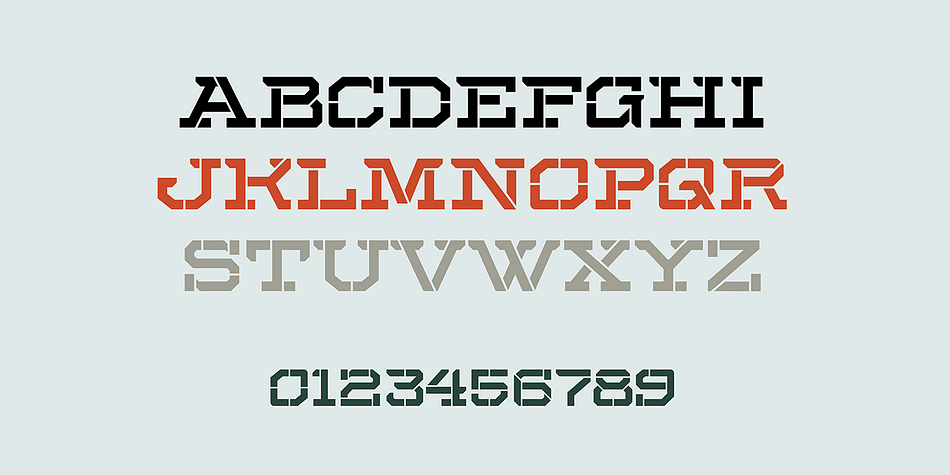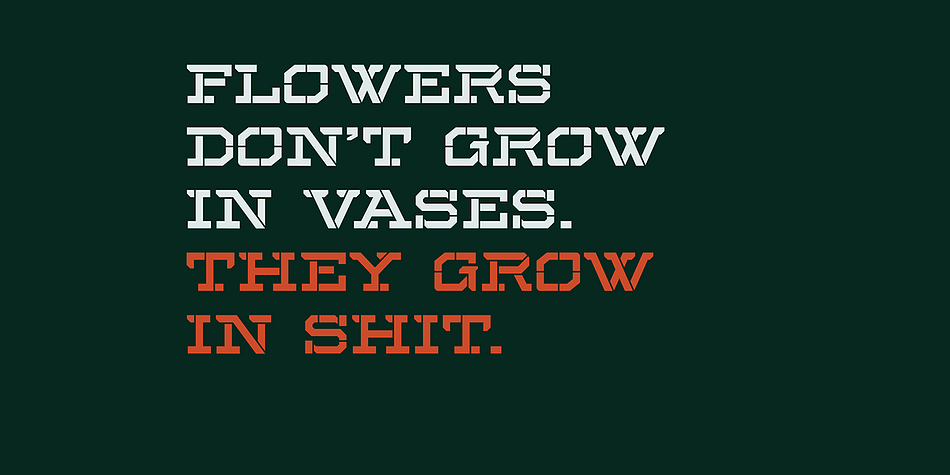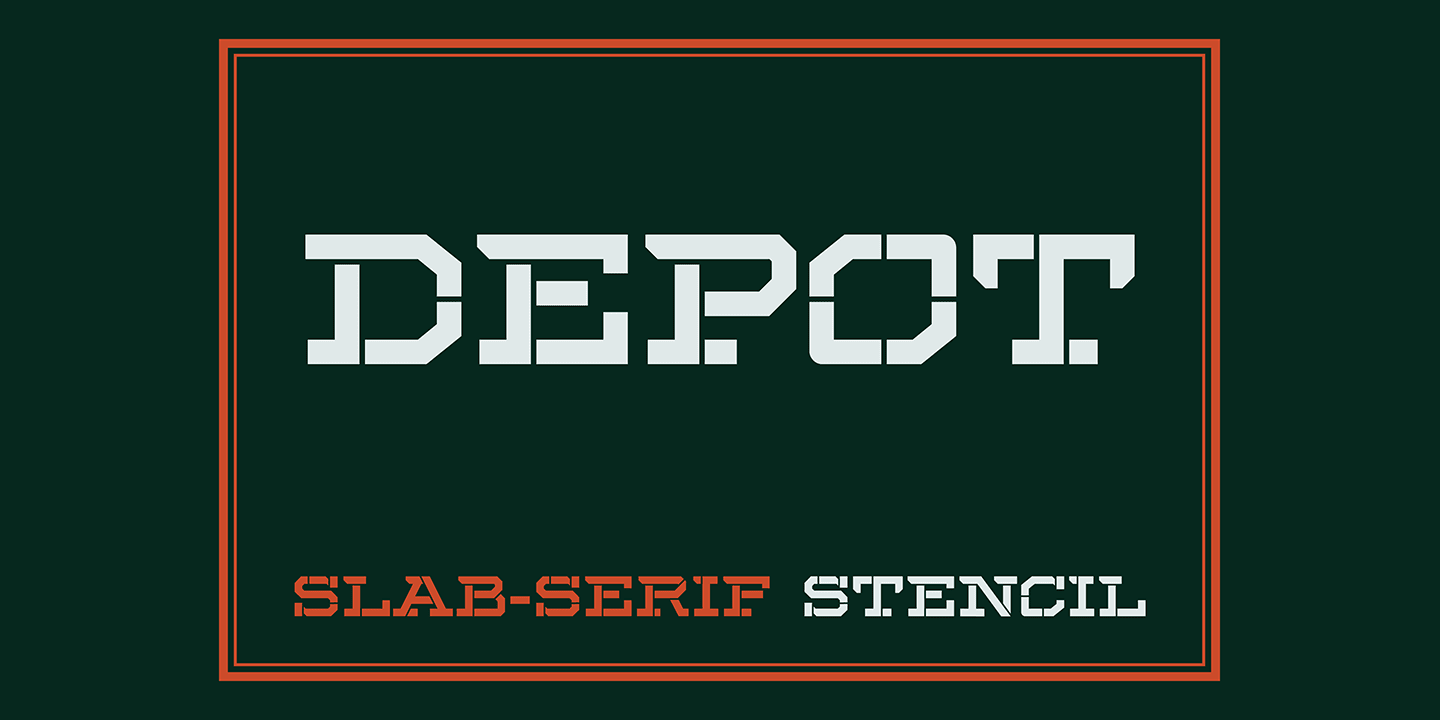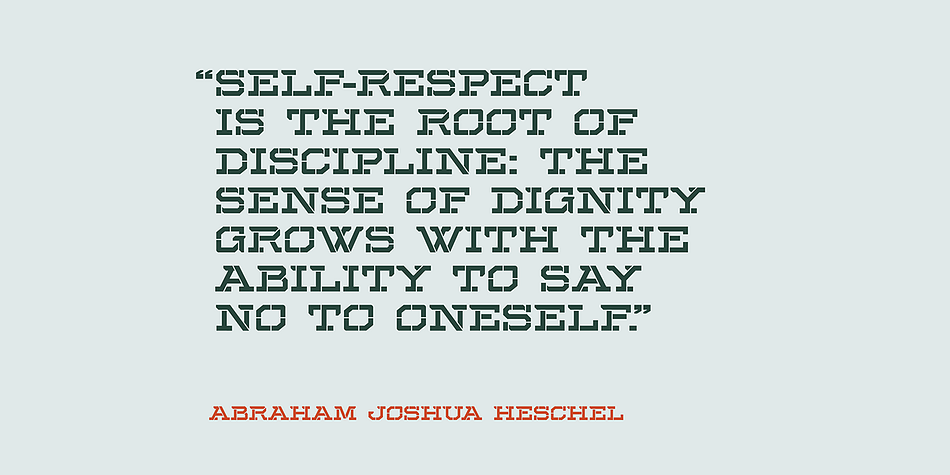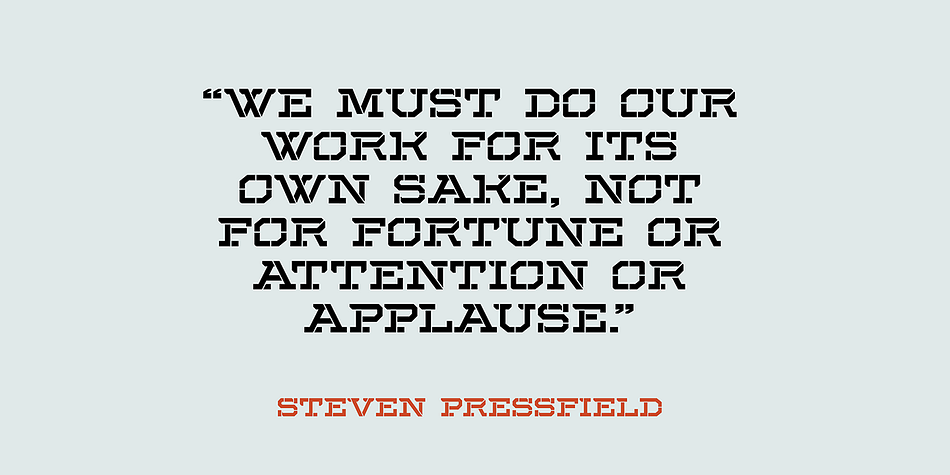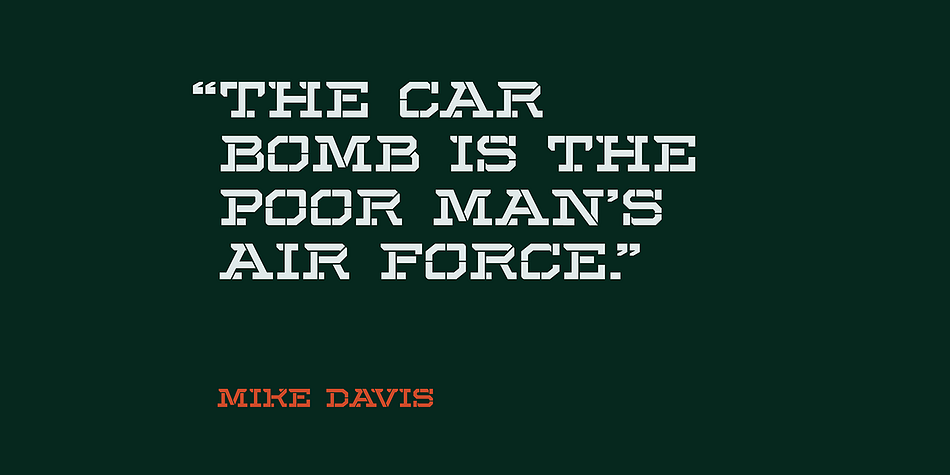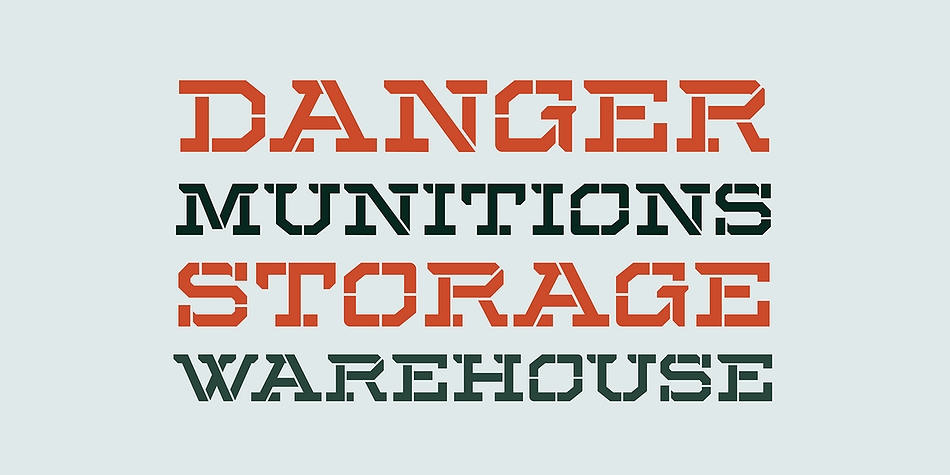
Designed by Craig Stainton, SB Depot is a display slab, slab serif and stencil font family published by SelfBuild Type Foundry.
SB Depot is a wide slab-serif stencil font.
Foundry | SelfBuild Type Foundry |
Styles | Display Slab, Slab Serif, Stencil |
Designer | Craig Stainton |